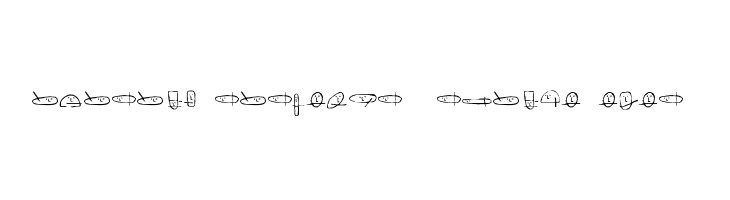
A bold, geometric, and italicized font with high contrast and sharp angles.
A bold, italicized font with a modern, sleek, and slightly condensed style.
A modern, rounded font with a clean and approachable design.
A playful font with characters encased in popsicle shapes, perfect for fun and creative projects.
A bold, extra expanded italic font with a modern, dynamic style.
A bold, blocky font with irregular, jagged edges for a playful look.
A decorative font with letters in themed circles, featuring high contrast and creative designs.
An ornate, medieval-style decorative font with intricate illustrations.
A casual, handwritten font with smooth, rounded edges and a playful appearance.